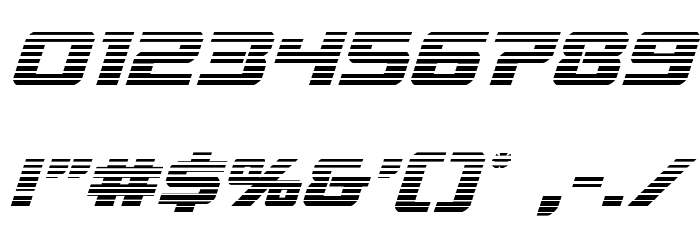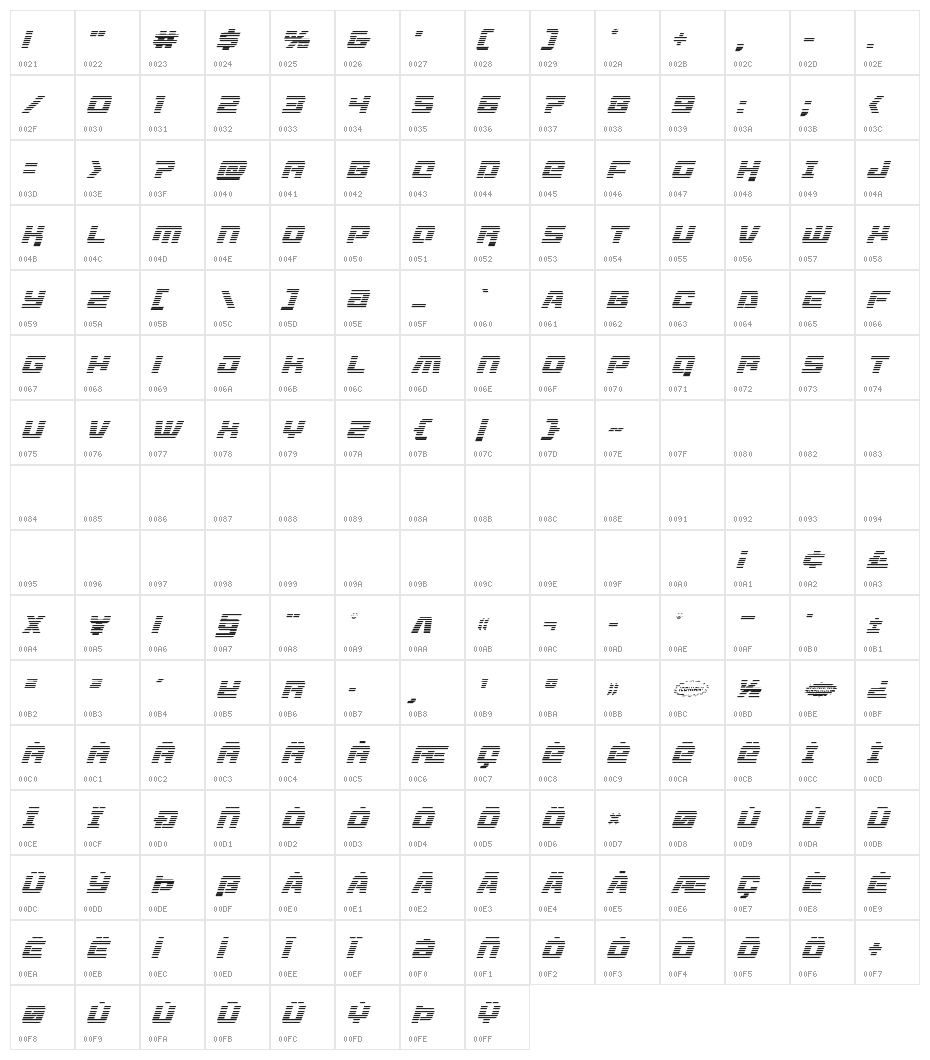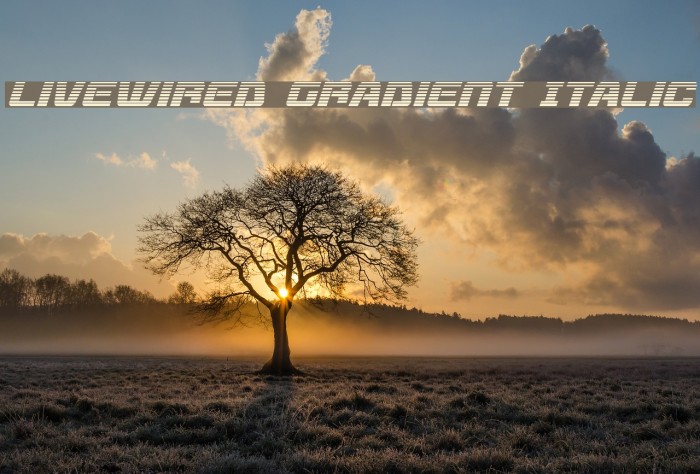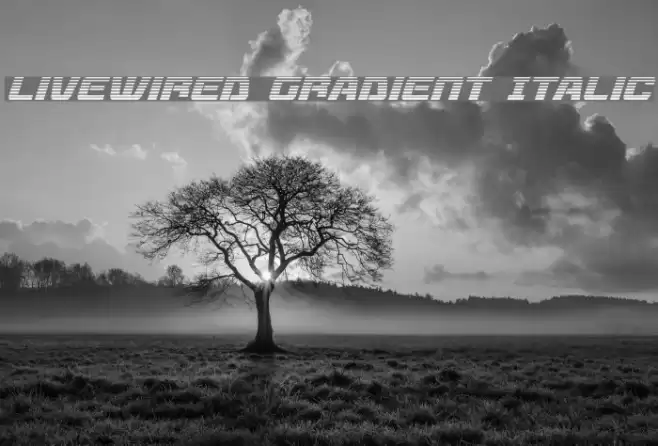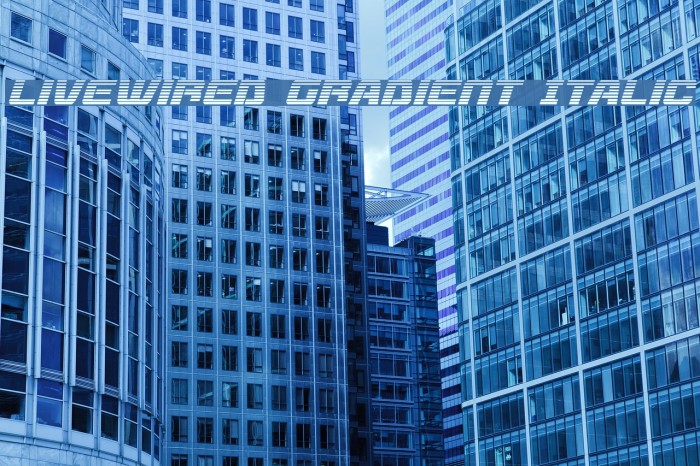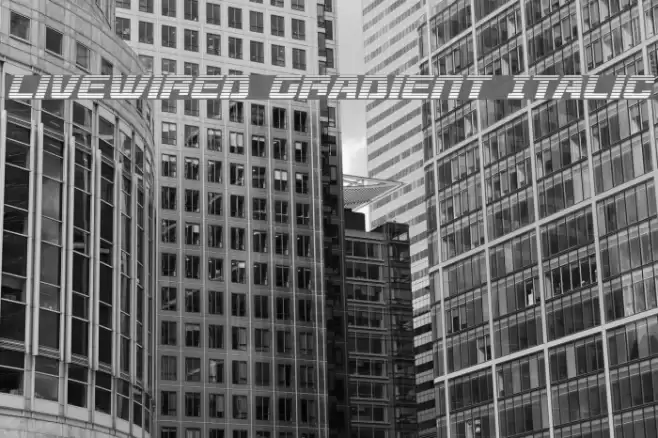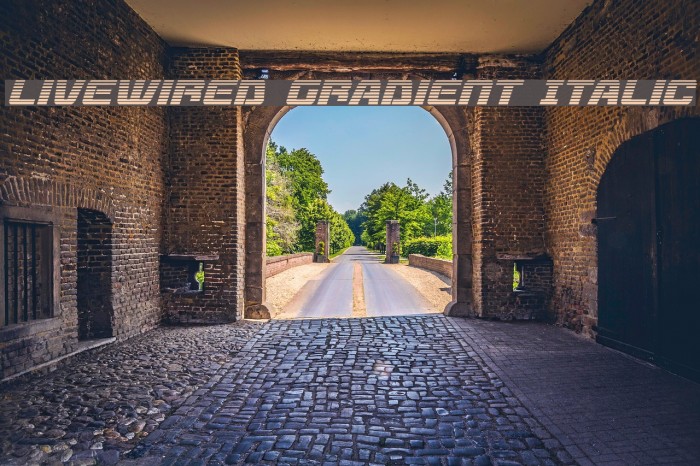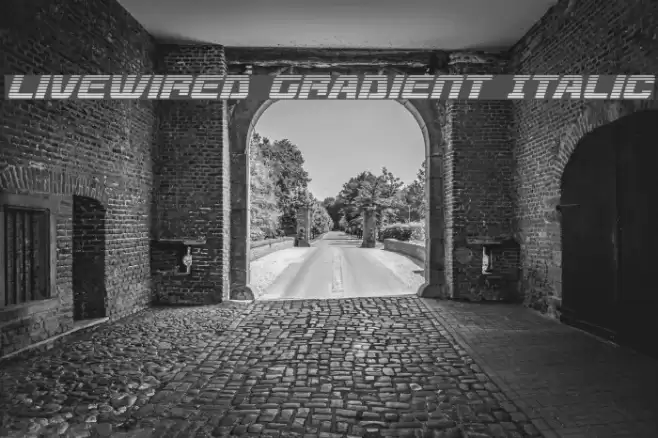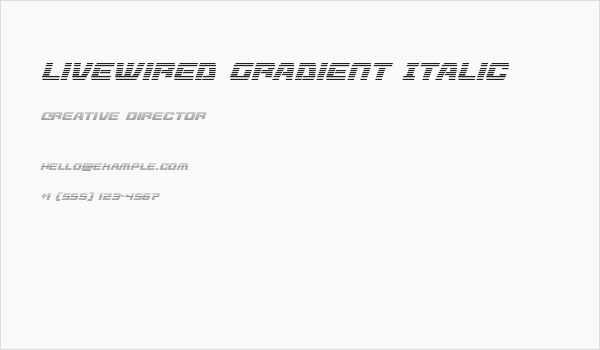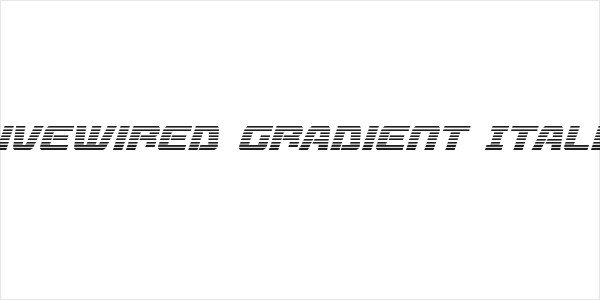
Livewired Gradient Italic Font
Livewired Gradient Italic Description
This font features a dynamic and futuristic design with a gradient effect that gives each character a sense of movement and depth. The italicized style adds a sleek and modern touch, making it ideal for projects that require a contemporary and edgy look. The characters are composed of horizontal lines that create a striped pattern, enhancing the sense of speed and innovation. This font is perfect for technology-themed designs, video game titles, or any creative project that aims to capture a sense of forward-thinking and modernity.
| Proposed Projects | Ideal for technology-themed designs, video game titles, and modern branding projects. |